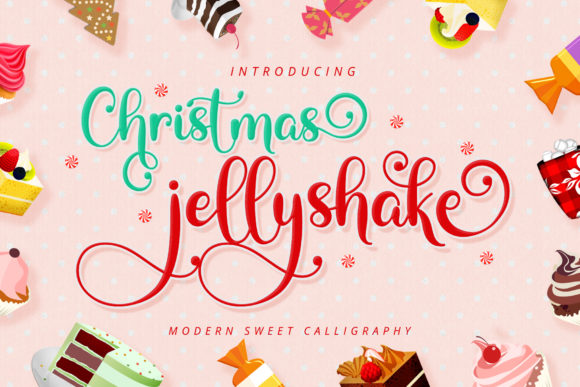
Introducing Christmas Jellyshake Font, a stunning and delightful calligraphy font that will instantly captivate you. Created by airotype, this font is the epitome of beauty and sweetness, perfect for all your festive needs.
With its fresh and modern design, Christmas Jellyshake Font brings a touch of elegance to any project it graces. Whether you're designing wedding invitations, crafting heartfelt greeting cards, or creating inspiring social media quotes, this font will elevate your creations to new heights.
Immerse yourself in the magic of the holiday season as Christmas Jellyshake Font adds a dash of charm to your designs. Its mesmerizing curves and graceful strokes evoke feelings of joy, warmth, and excitement, making it the perfect choice for spreading the holiday cheer.
Unleash your creativity and let Christmas Jellyshake Font be your ultimate tool for expressing your love for all things Christmas. Its versatility allows it to seamlessly blend into various design styles, ensuring that your projects stand out from the crowd.
Captivate your audience with the enchanting power of Christmas Jellyshake Font. Each letter is meticulously crafted, exuding a unique personality that will leave a lasting impression. Its exquisite details and impeccable readability make it a must-have for anyone seeking the best fonts for Merry Christmas.
Embrace the holiday spirit and give your designs a festive makeover. Christmas Jellyshake Font is the key to unlocking a world of endless possibilities. From branding your business with a touch of elegance to creating stunning visuals that resonate with your audience, this font is your secret weapon.